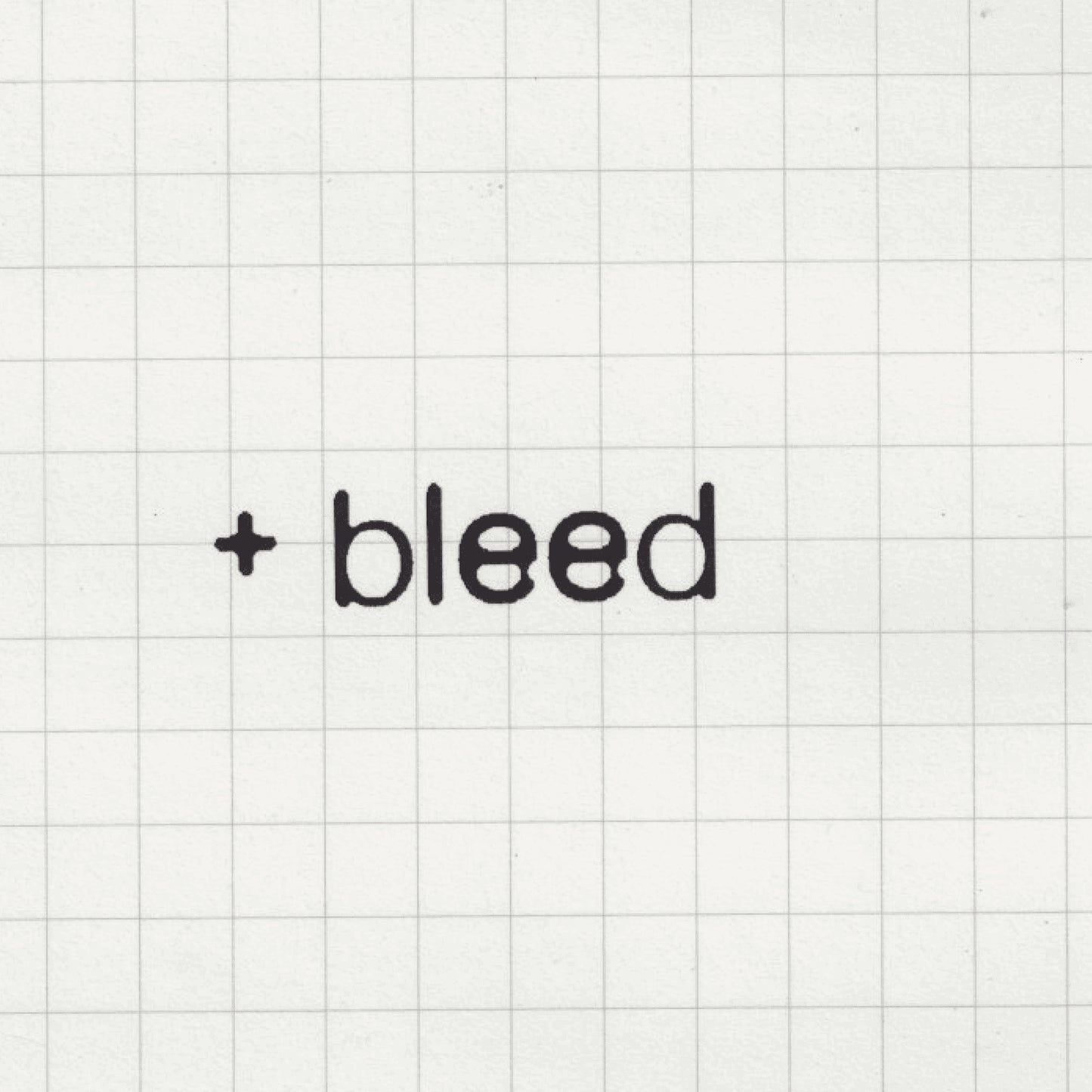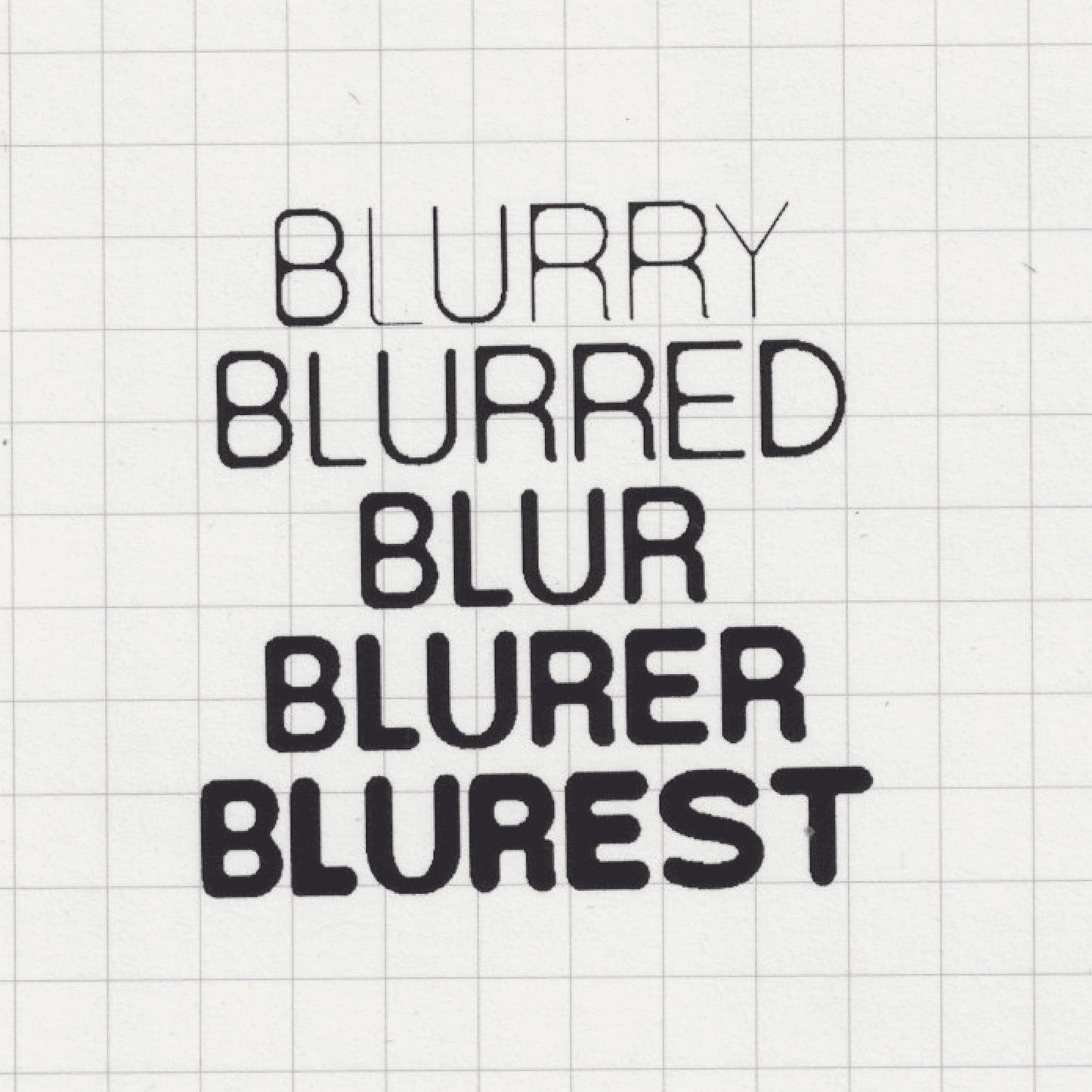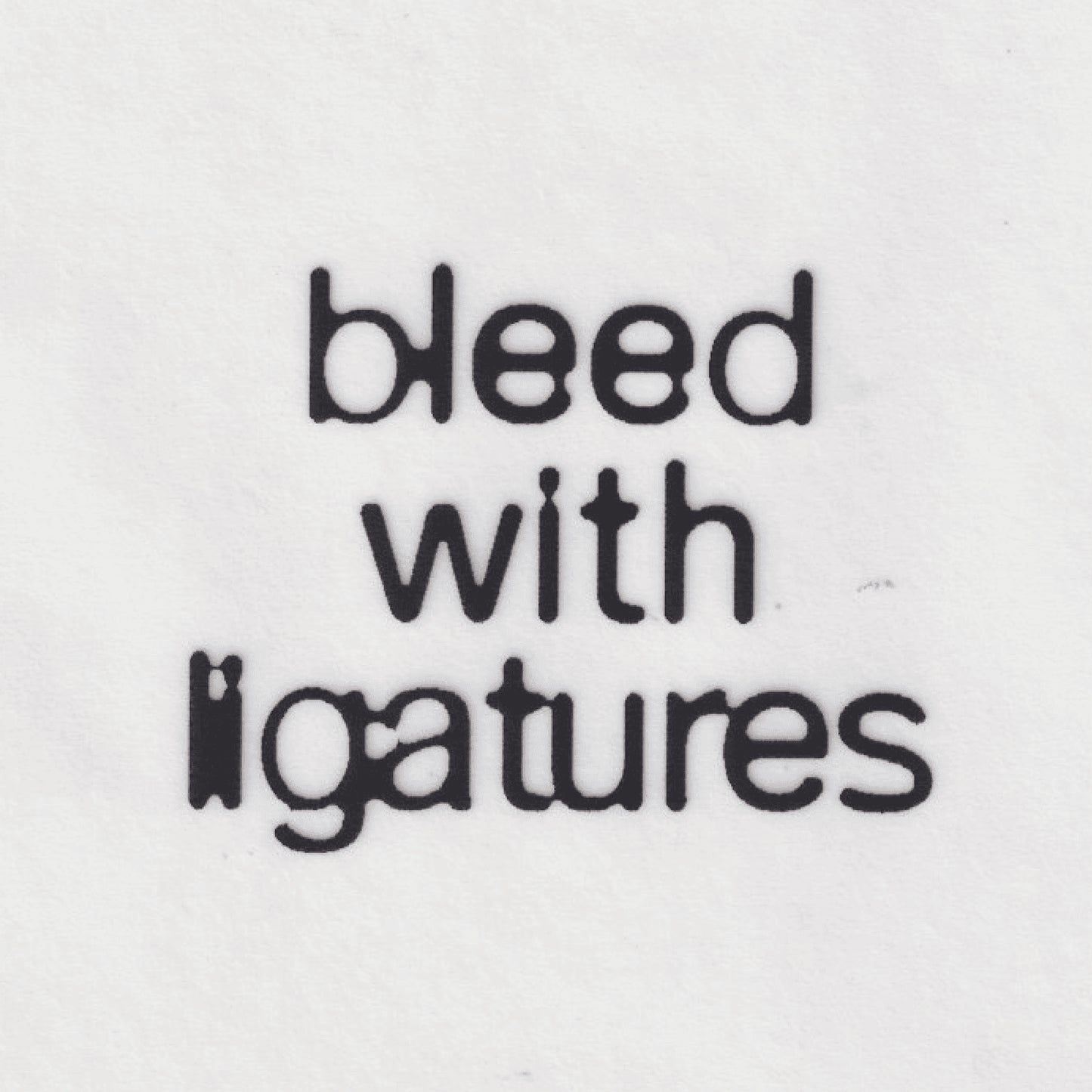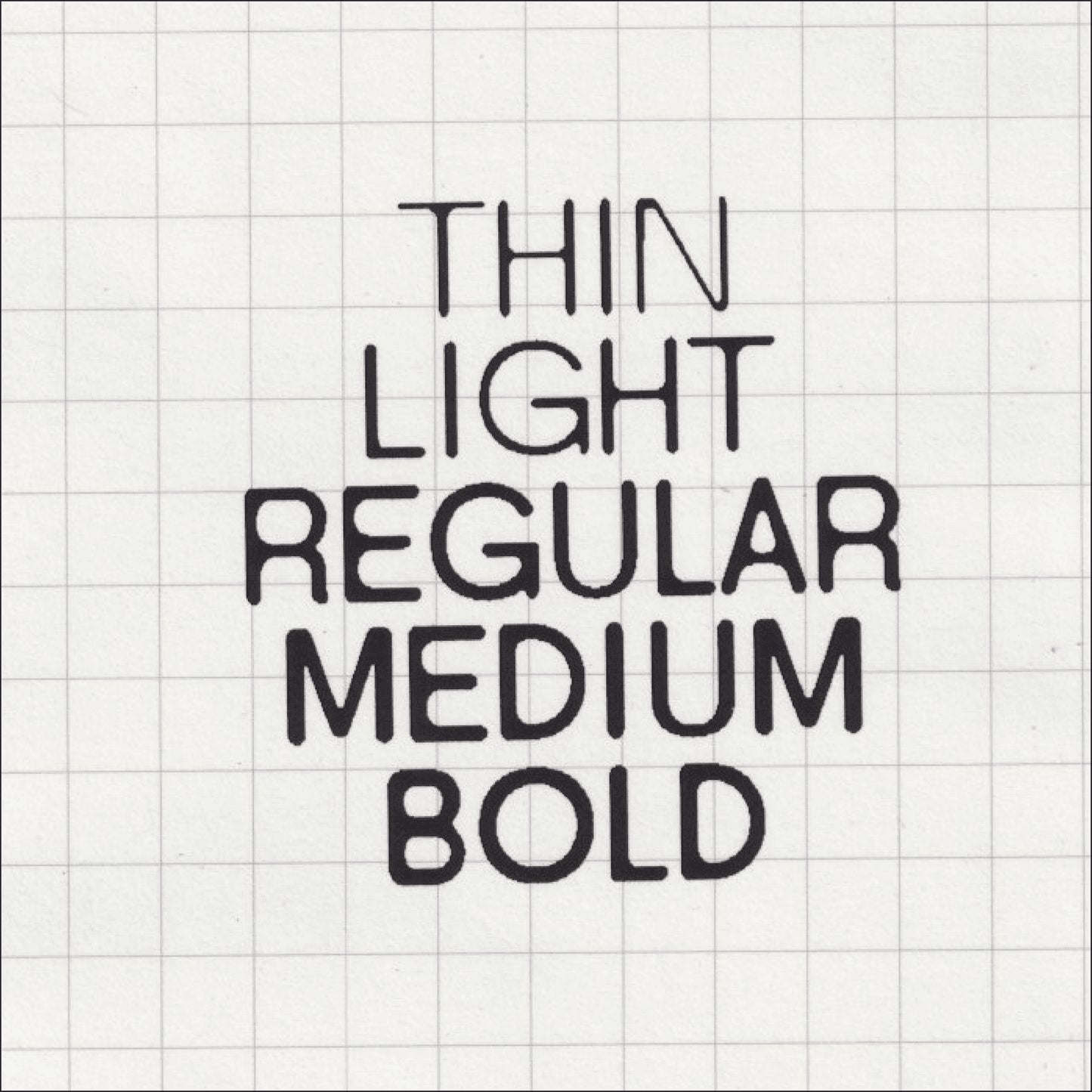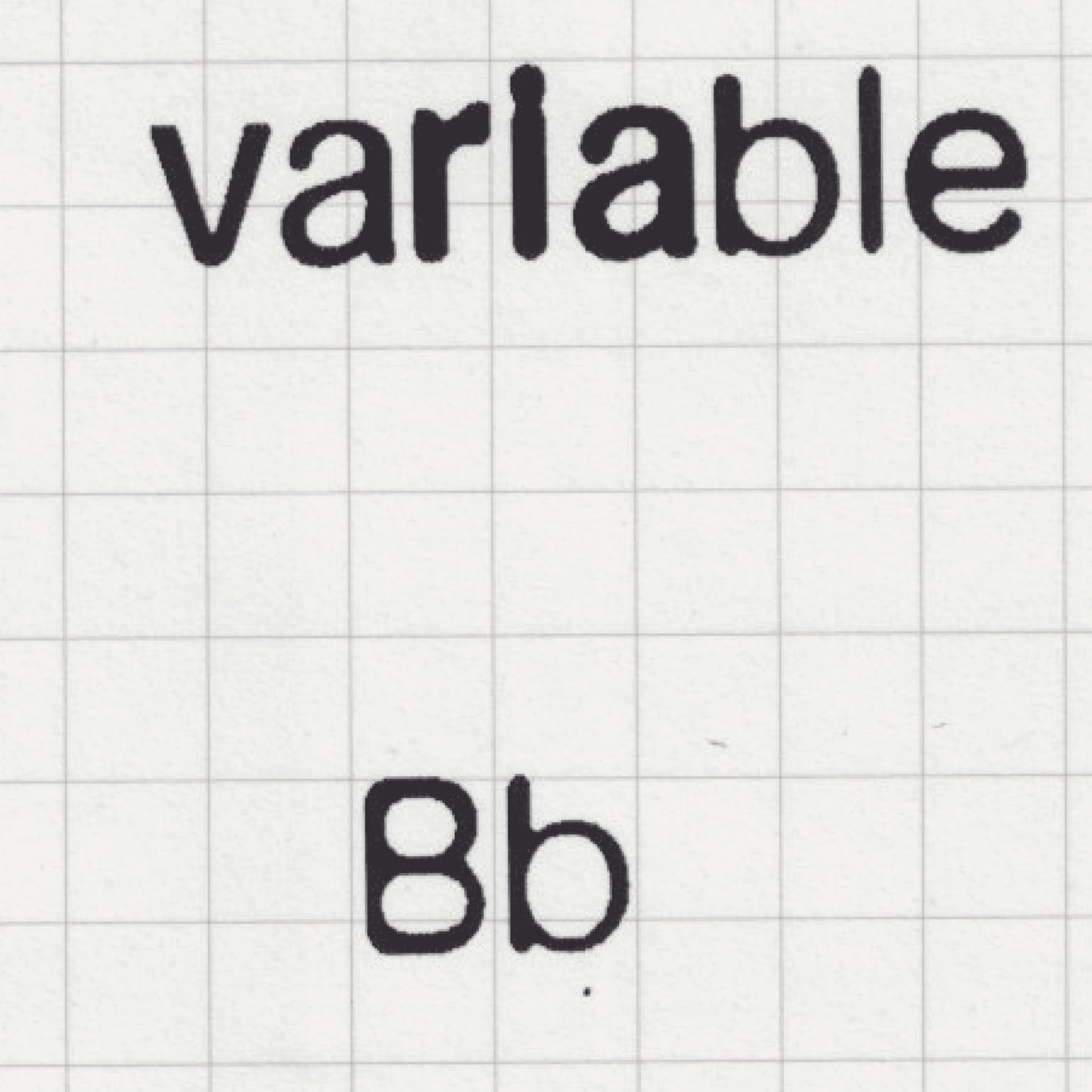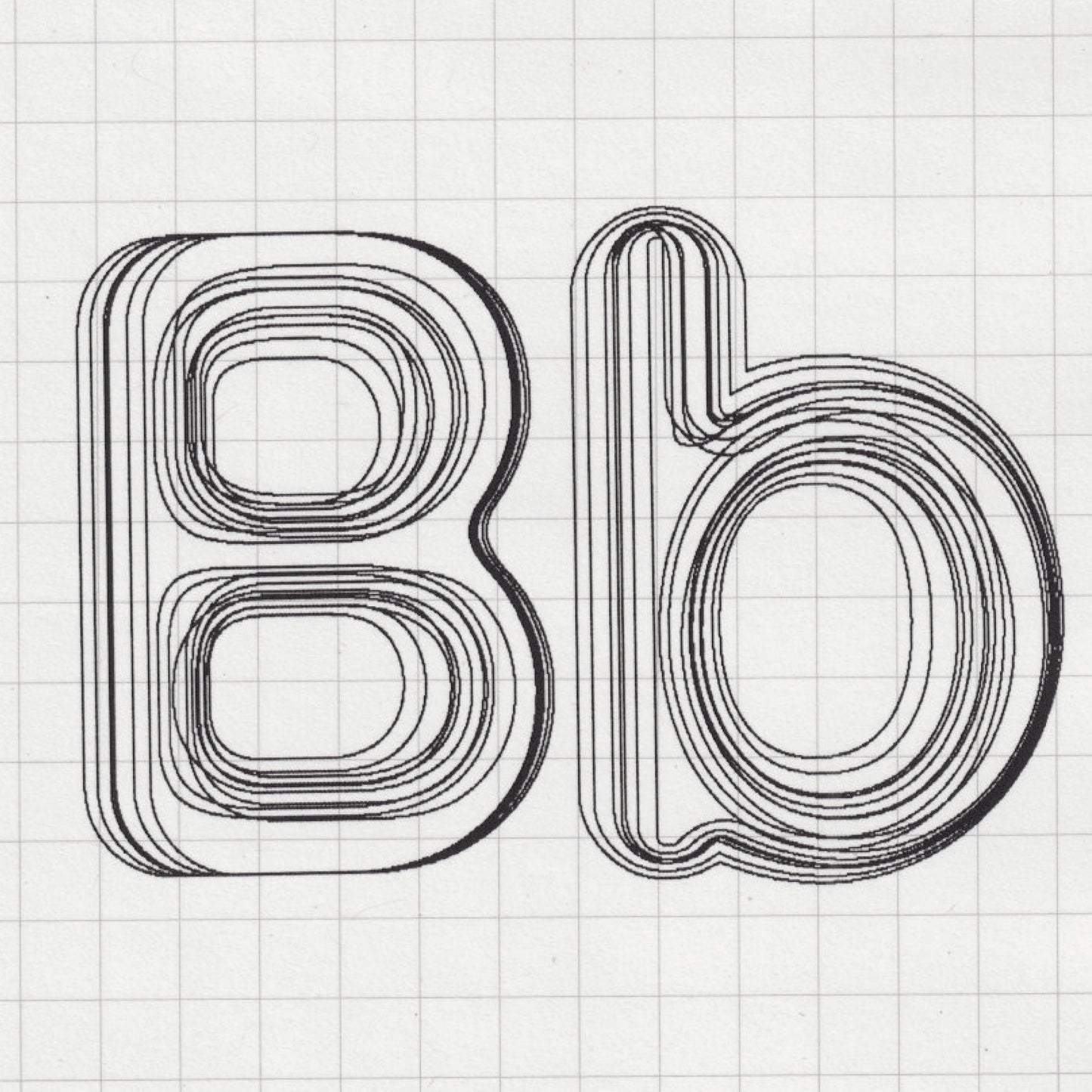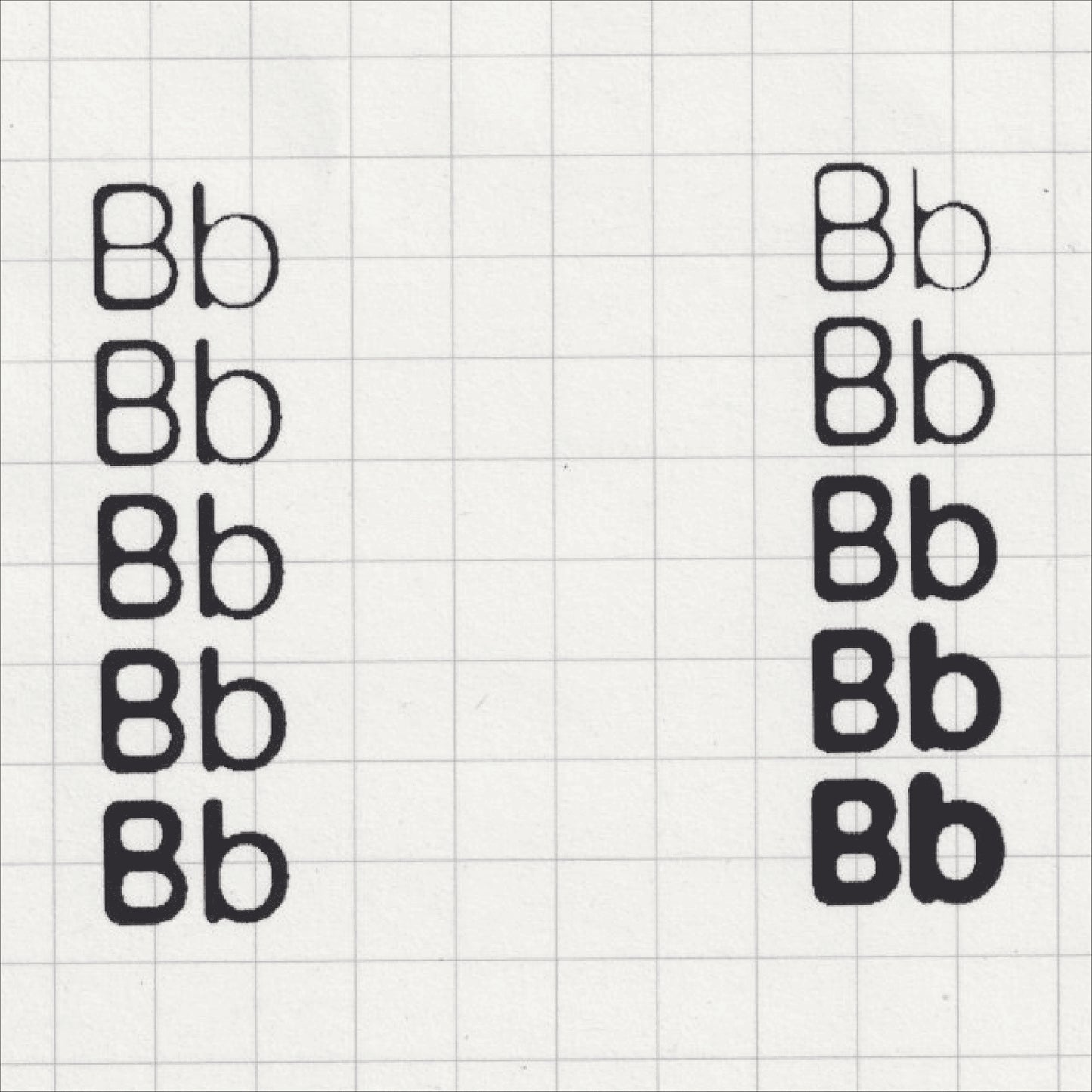
Serial Blur
Mario Julian Gutierrez
Serial Blur is a typographic exploration of blurring, creating a perception of movement, imperfection, and fluidity. Built on the foundation of Serial B, this typeface is divided into two distinct systems:
Thin to Bold – A structured approach where the type transitions smoothly between two proportionally consistent drawings, following the foundational pattern of Serial B. Blurry to Bluriest – A more experimental system where the typeface is pushed through offsets, increasing irregularities and growing in size in an organic, almost random manner rather than following a strict design system.